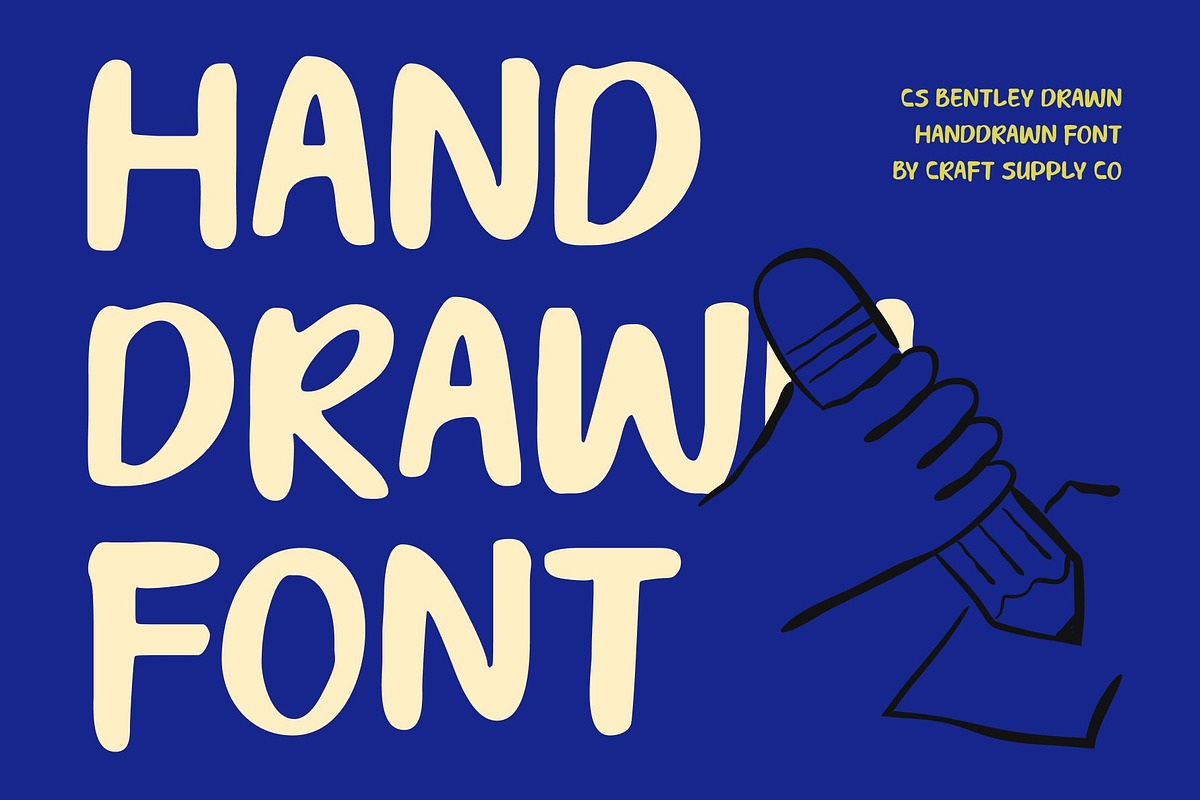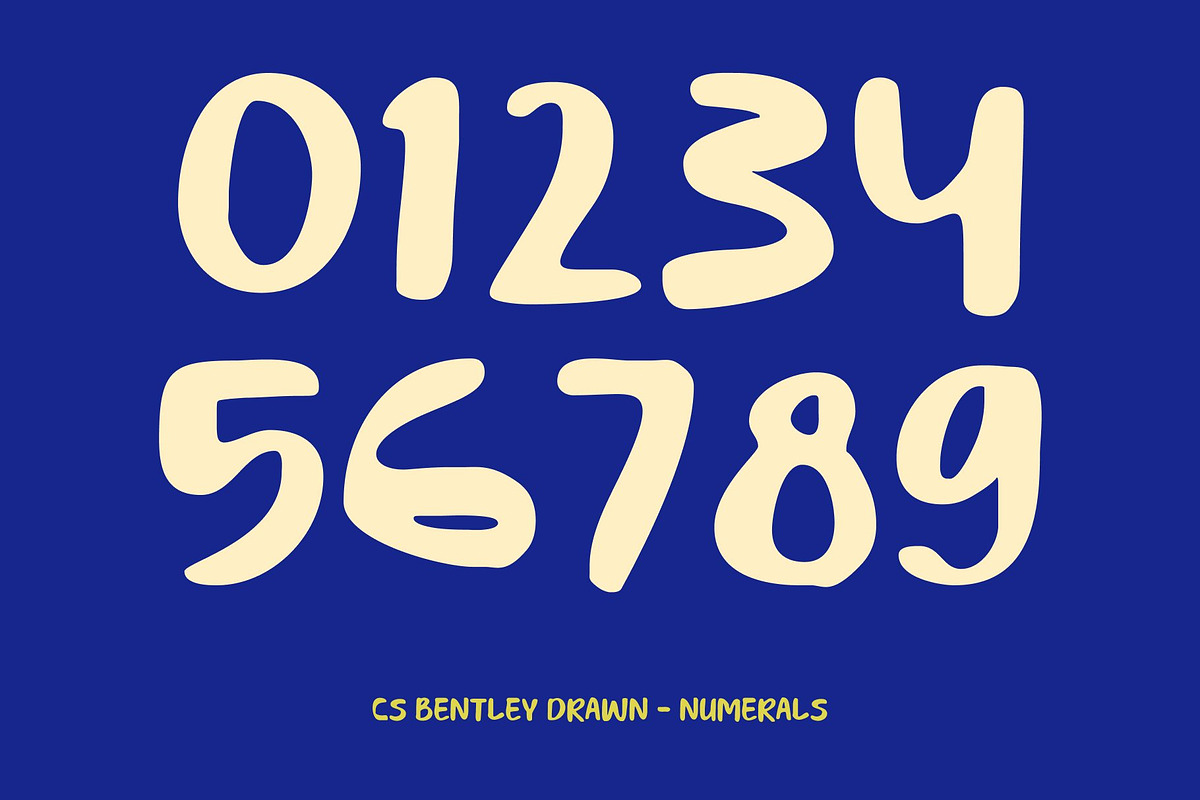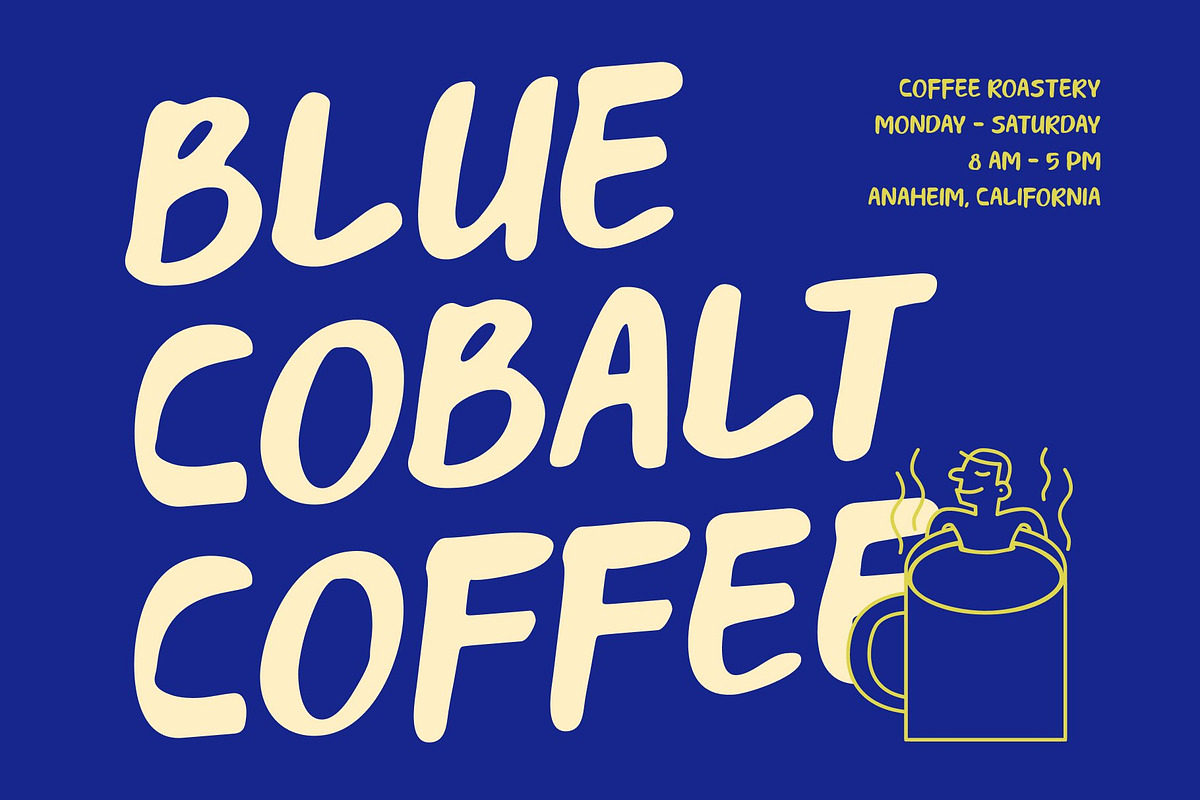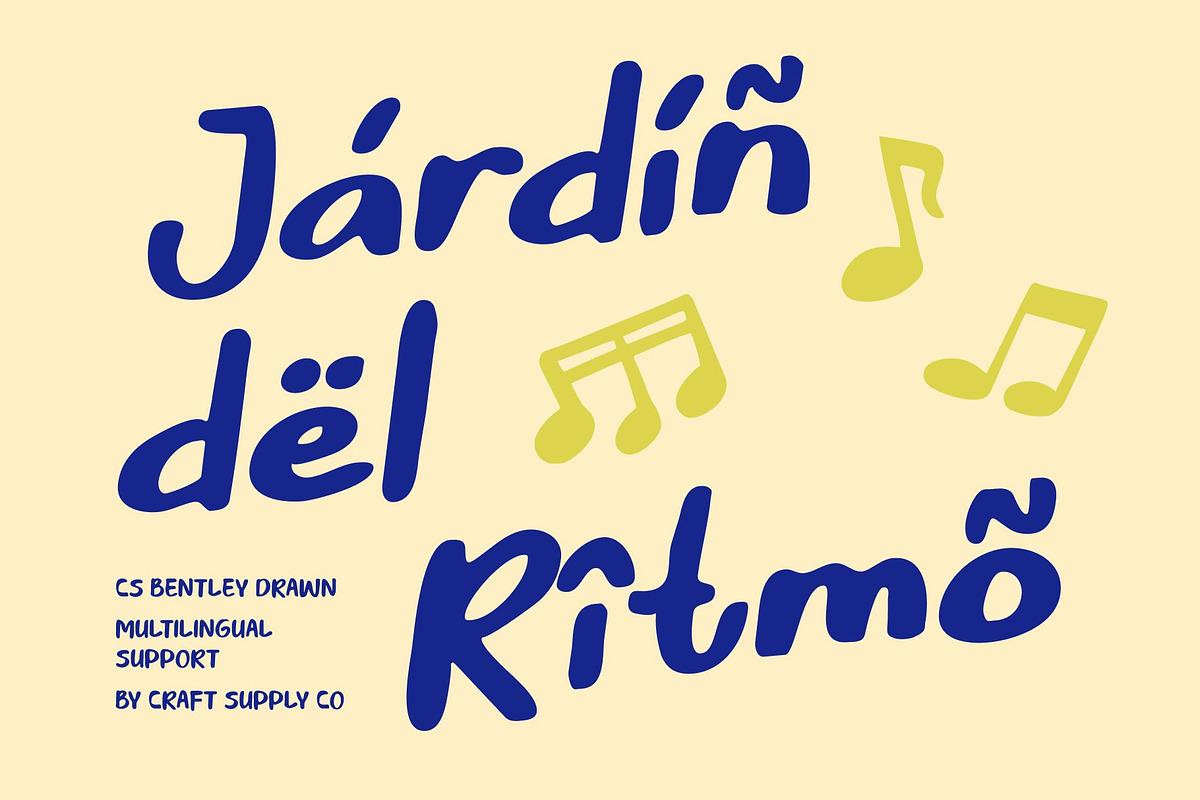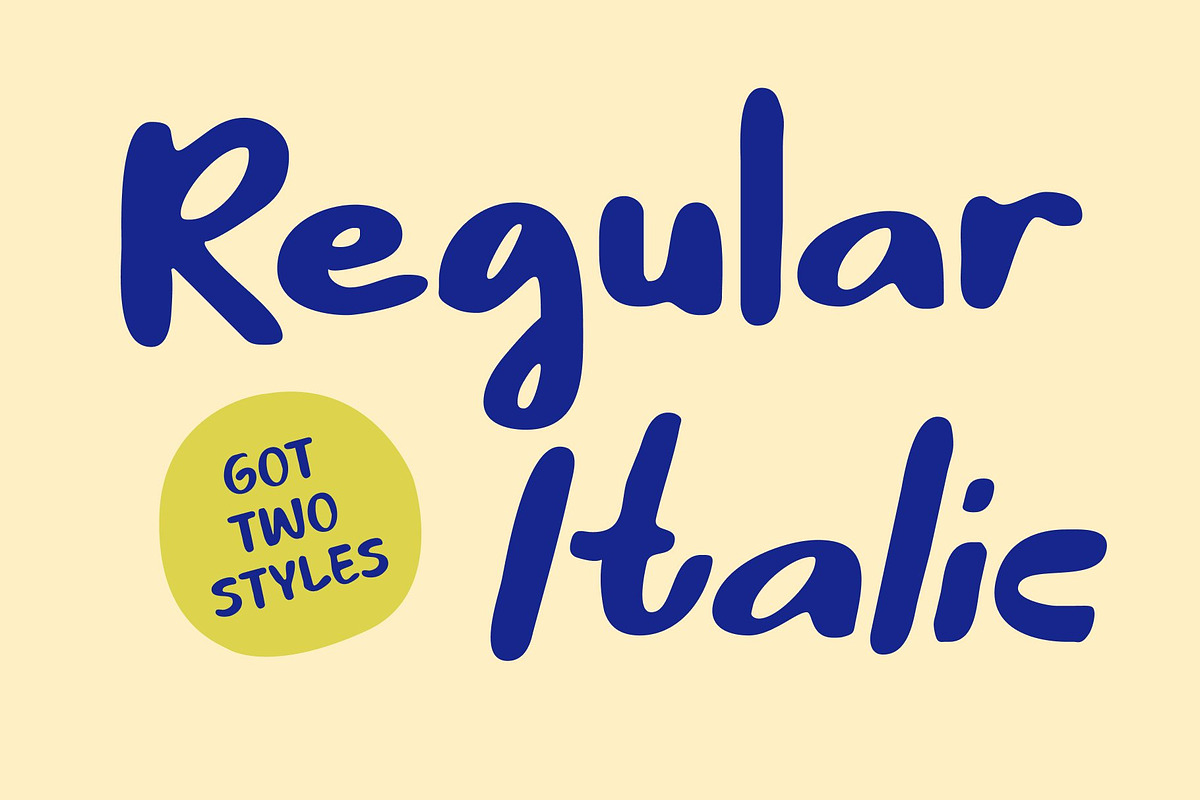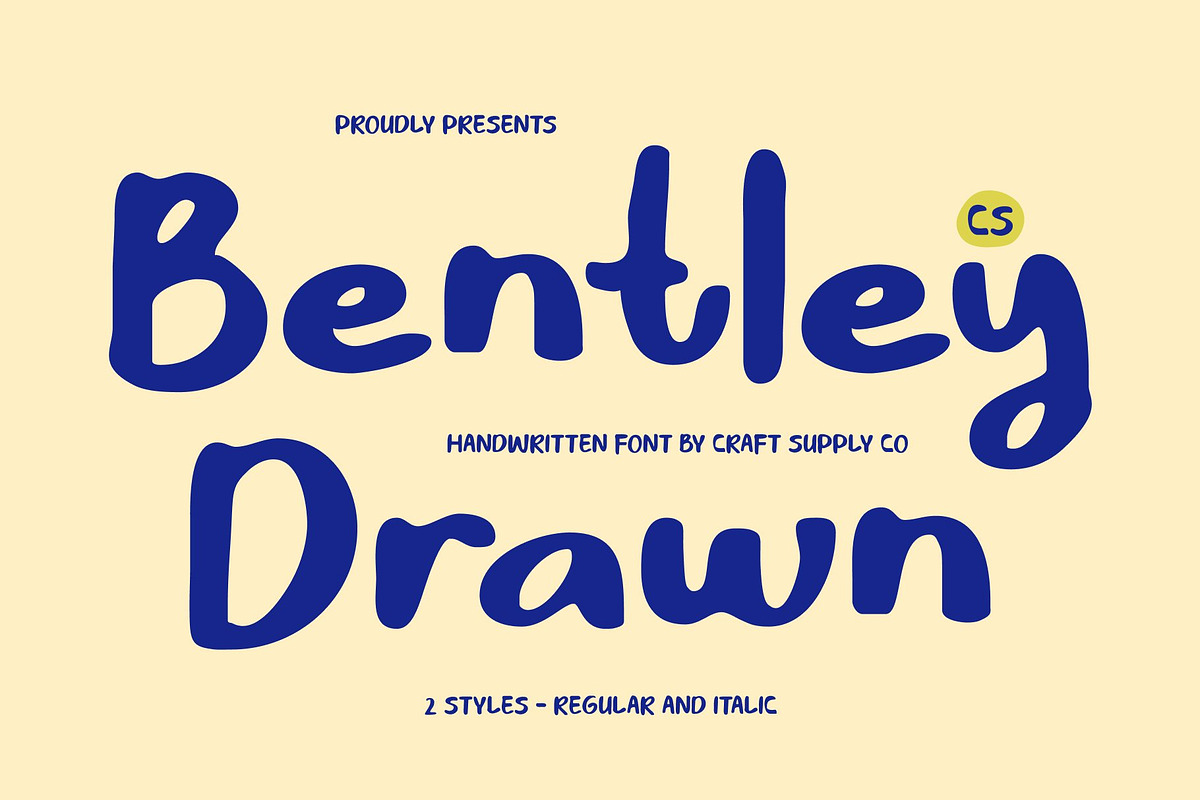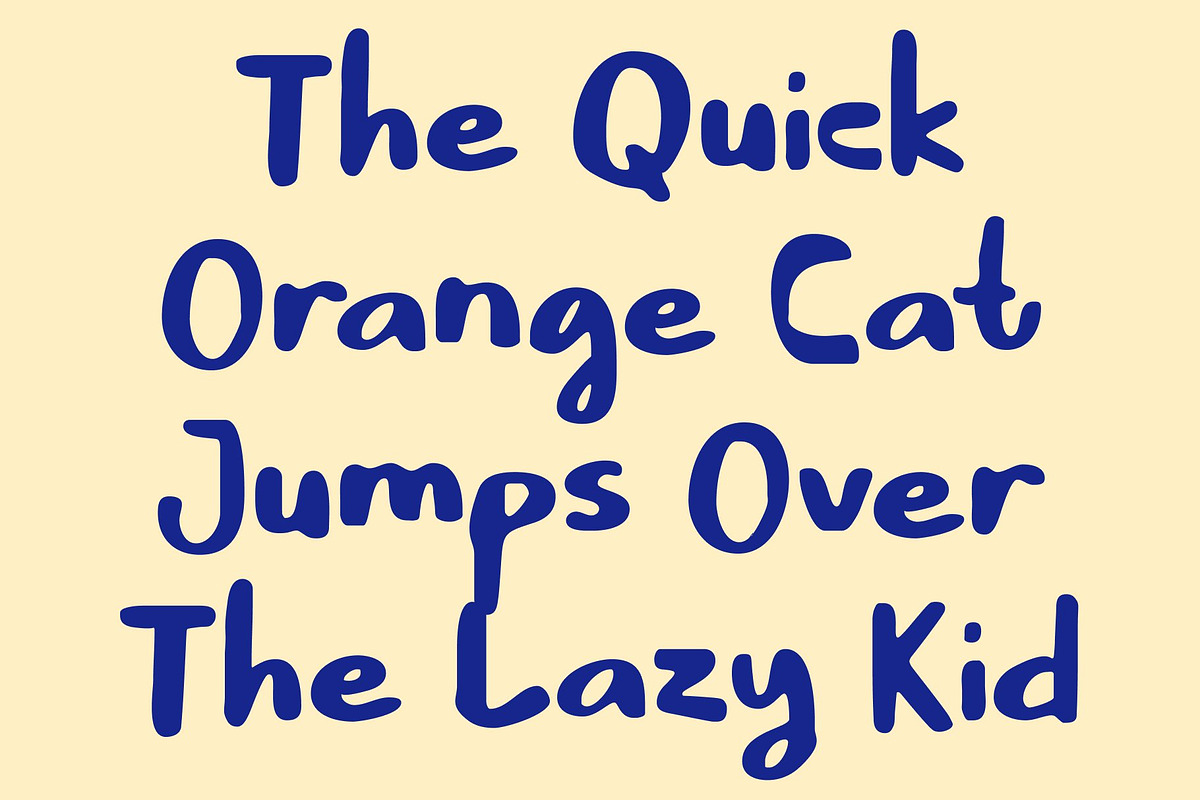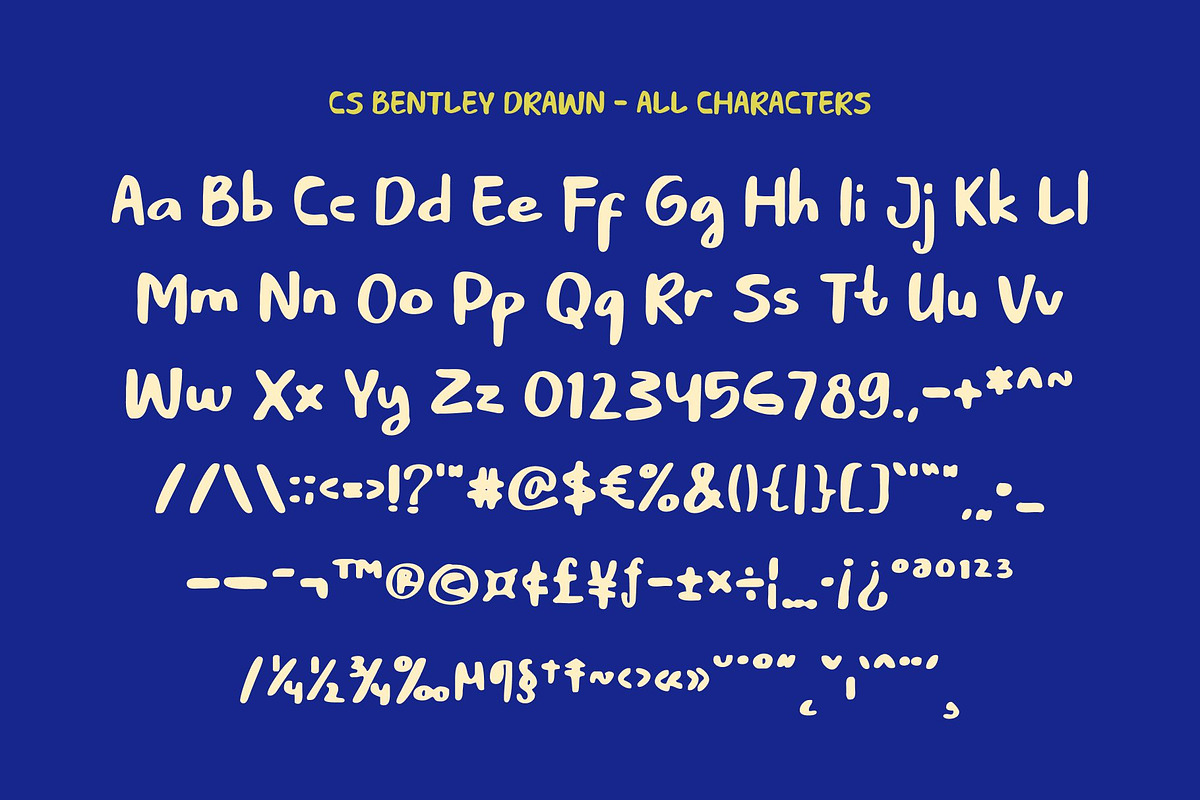
CS Bentley Drawn
CS Bentley Drawn – Soft Handwritten Font with Warm, Authentic Expression
Gentle Pen Strokes with Natural Hand-Drawn Charm This is a soft handwritten font that captures the beauty of natural pen strokes with a warm, expressive touch. Its smooth, flowing letterforms create an organic rhythm that feels personal and sincere. Enhanced with a subtle drawn texture, this font brings a genuine handwritten feel that adds softness and emotional depth to every design.
Warm Texture with Honest, Human Character The hand-drawn details introduce gentle imperfections that make this font feel authentic and approachable. Rather than appearing overly polished, the font embraces a natural, human quality that enhances its warmth and relatability. This delicate balance between neatness and spontaneity makes it ideal for designs that value honesty, comfort, and heartfelt expression.
Perfect for Personal Branding and Expressive Typography This font works beautifully for personal branding, signature-style logos, lifestyle visuals, and social media content. Its expressive handwriting style also shines in motivational quotes, captions, and storytelling designs where emotion and personality play a central role.
Ideal for Casual Invitations and Relaxed Creative Projects From greeting cards and casual invitations to handmade-inspired print layouts, this font delivers effortless charm. Its soft, friendly presence gives every message a meaningful, intimate tone making designs feel warm, inviting, and genuinely human.